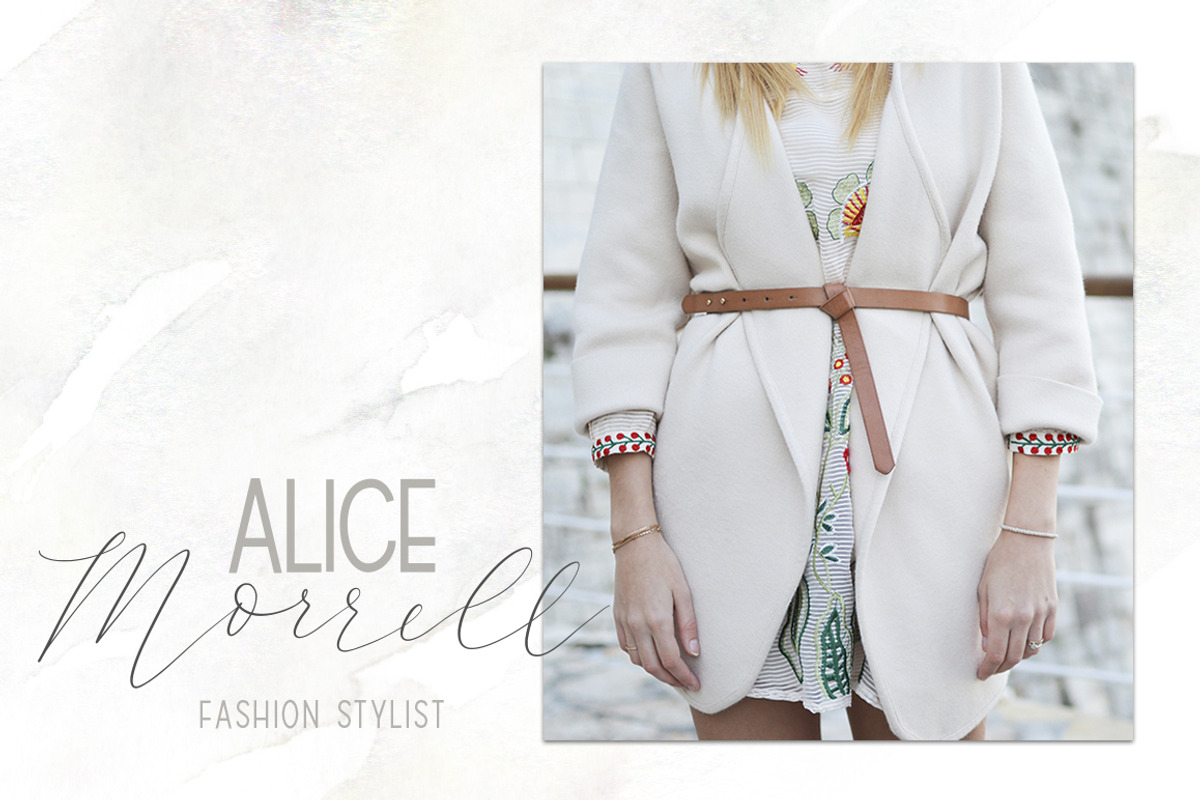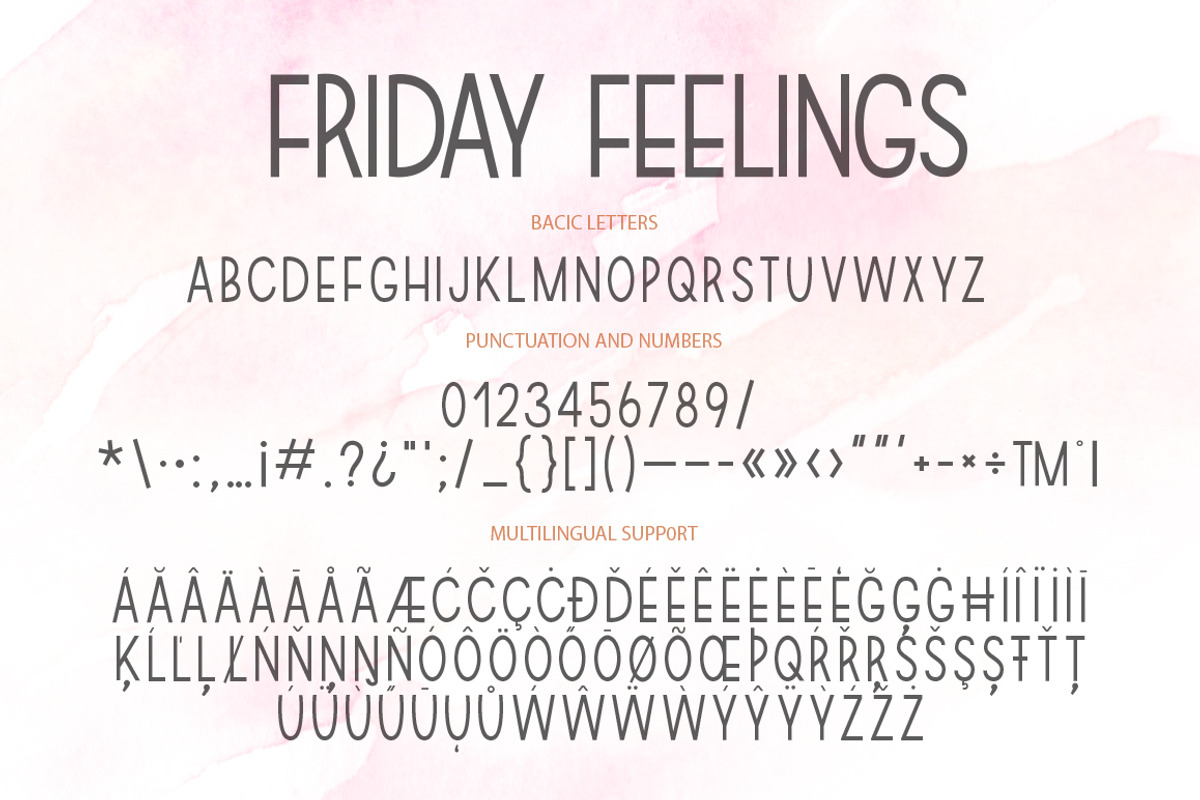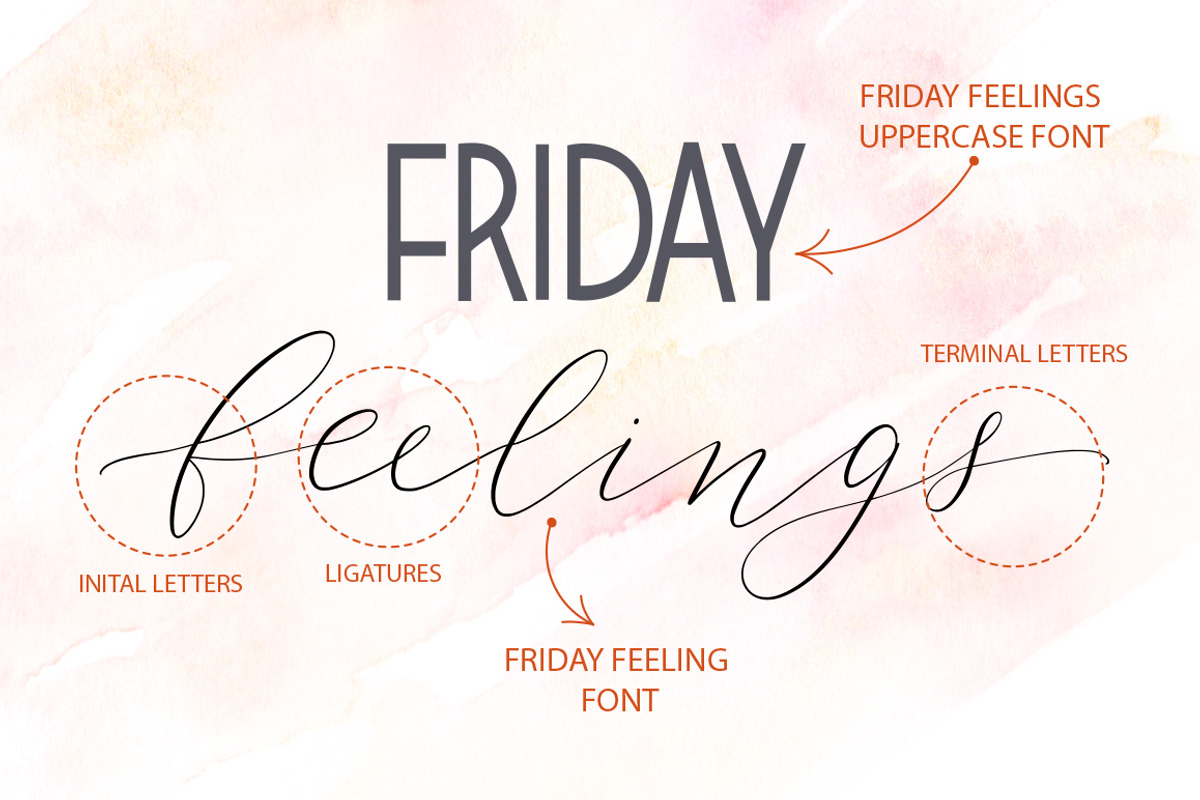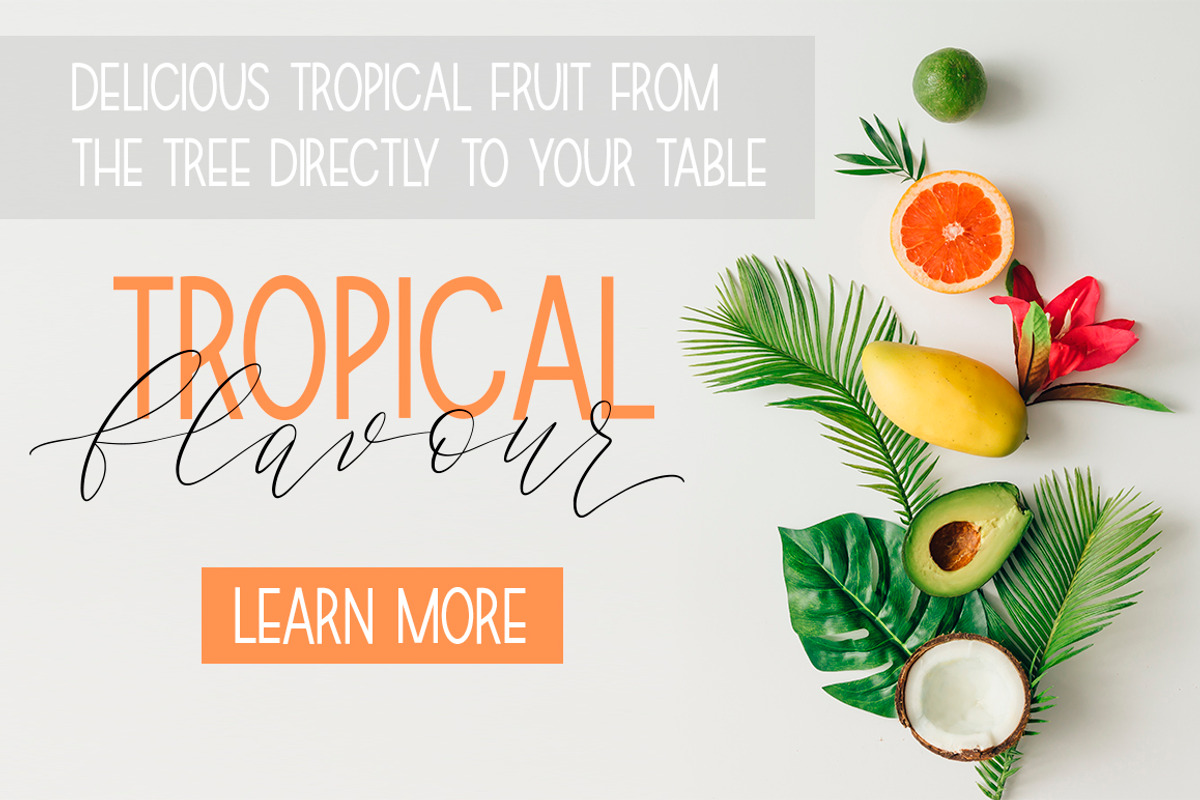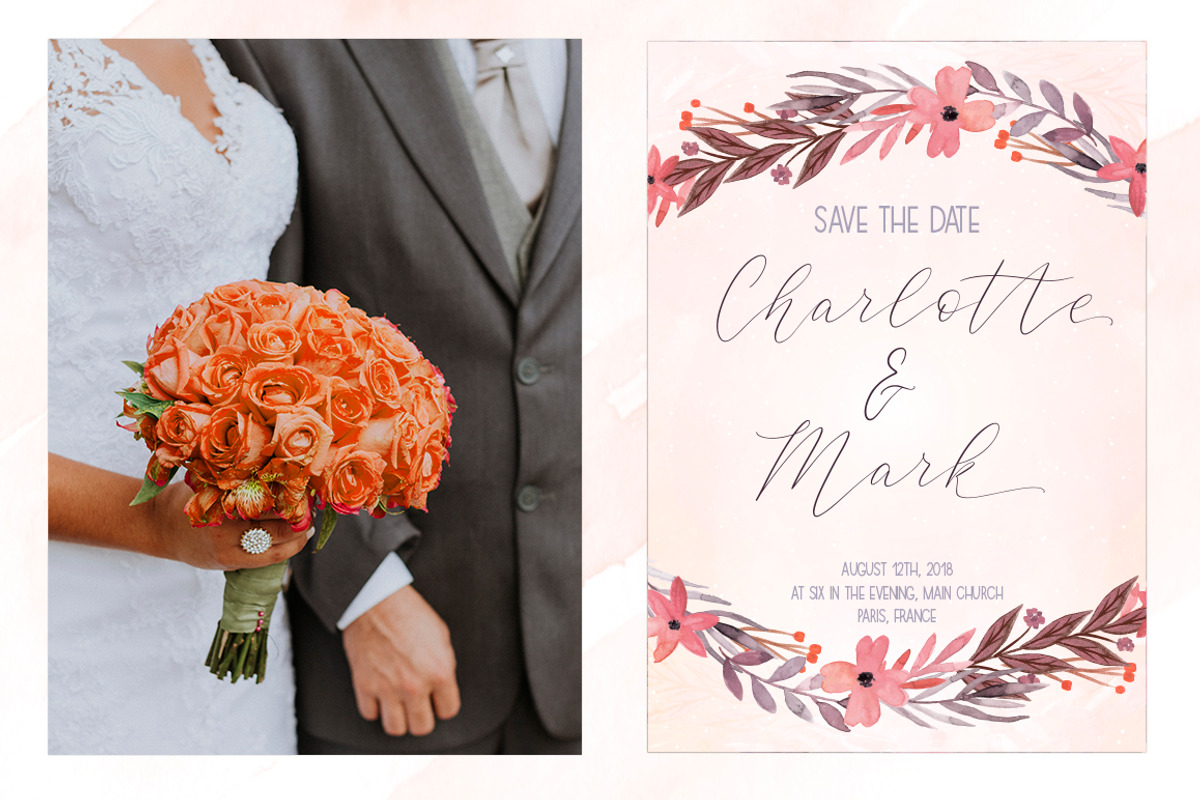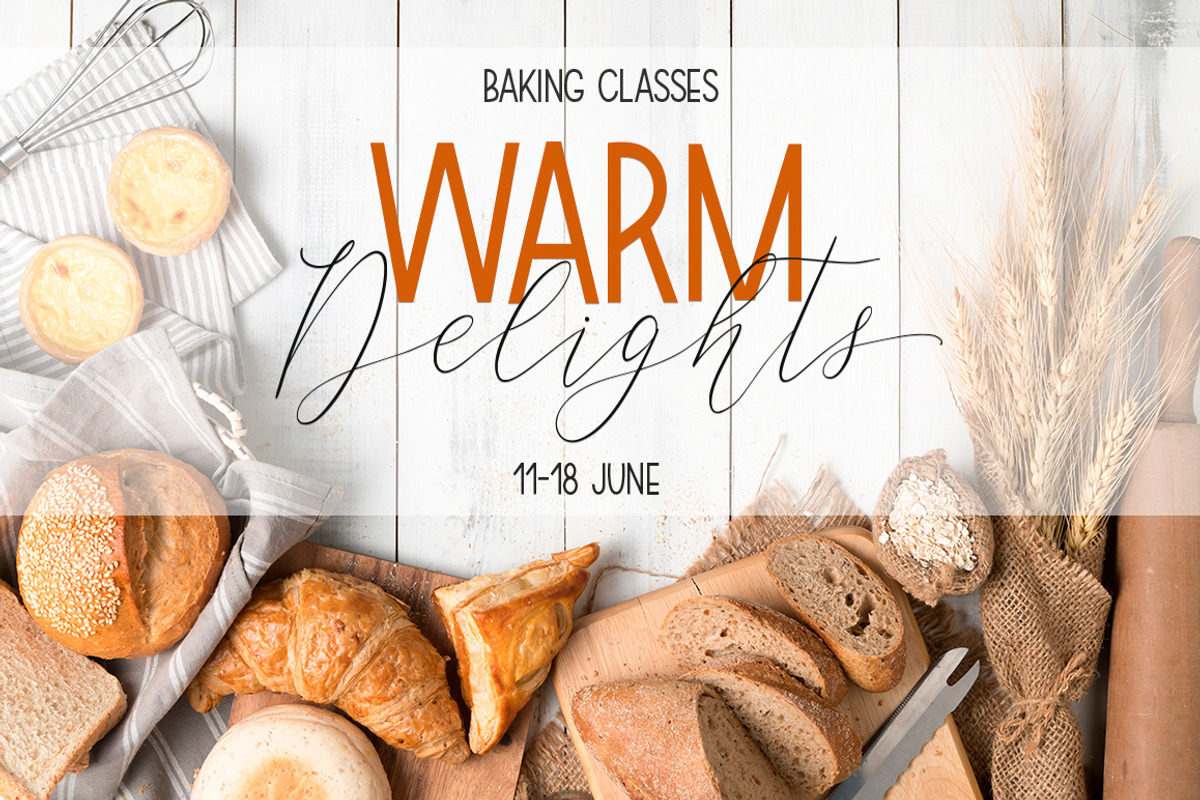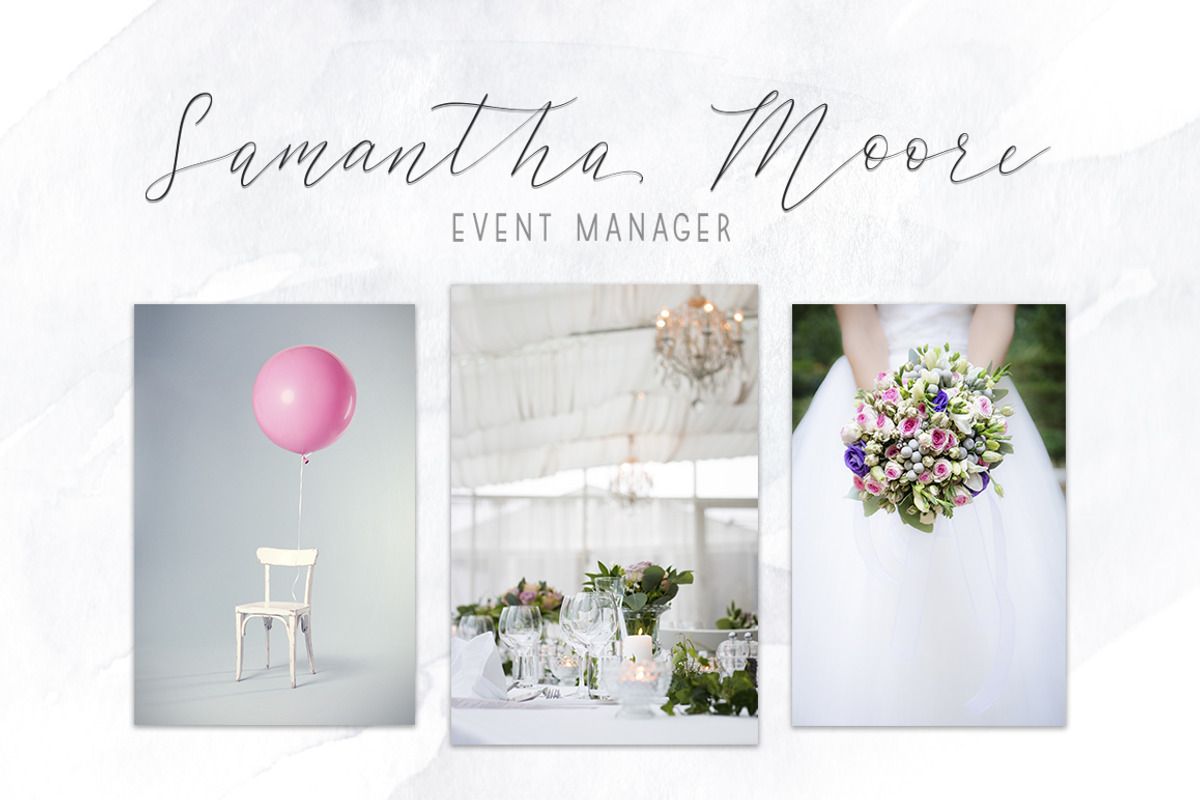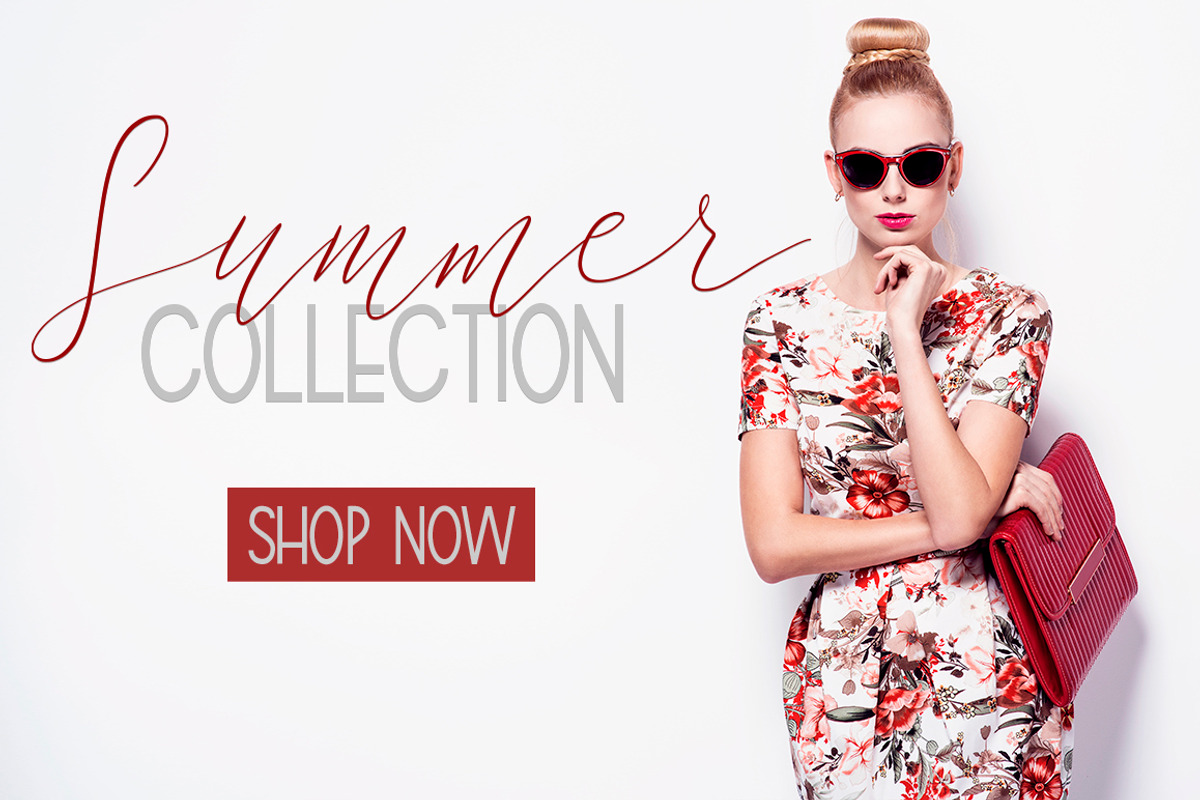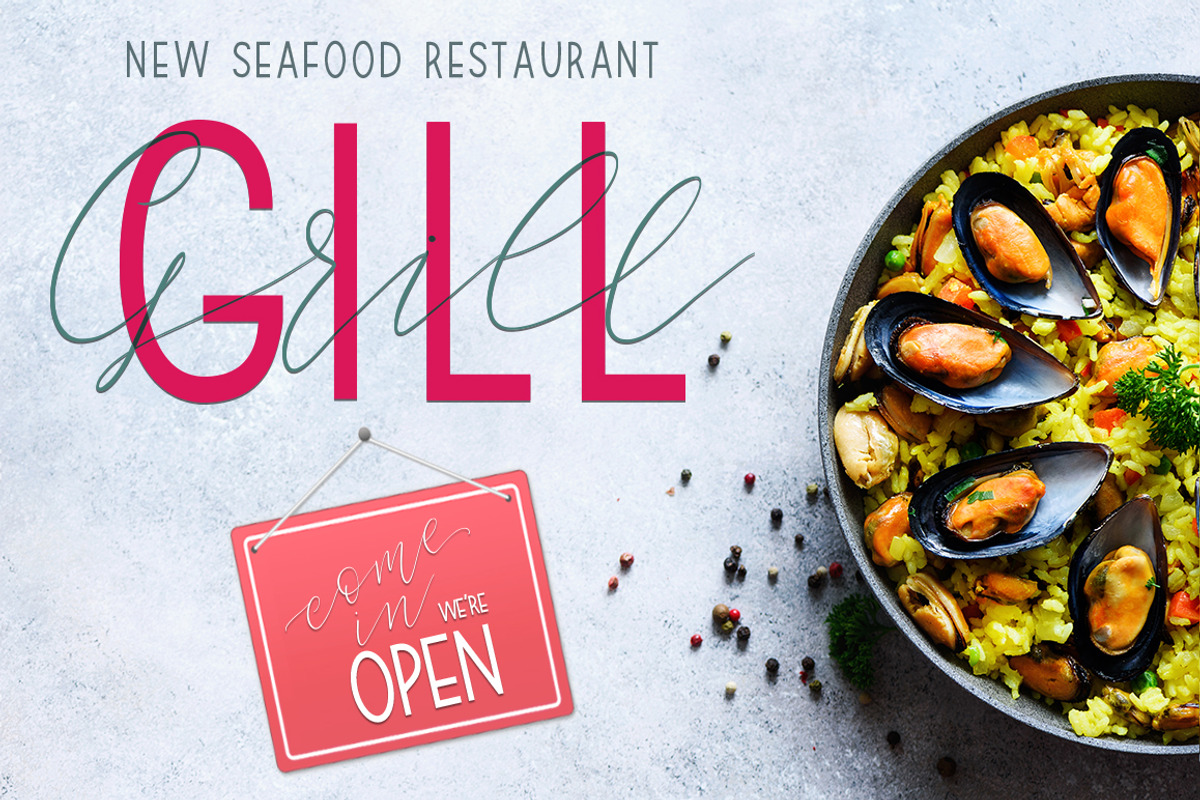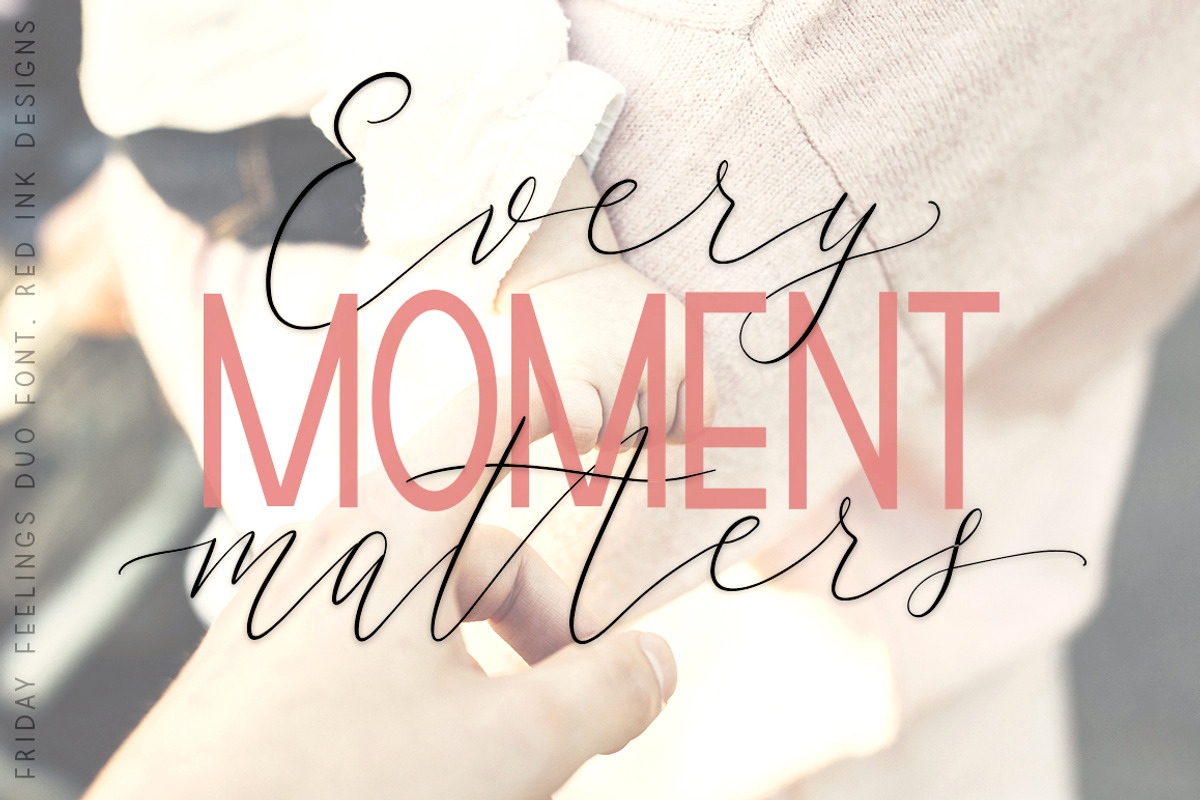
Friday feelings. Font Duo.
Friday Feelings is a beautiful gentle pair of script and sans serif fonts. Modern, expressive; perfectly combined typographic harmony is perfect for posters, greeting cards, t-shits, branding materials, quotes and any other amazing projects you are working on. Each font can be used separately. In conjunction they give a sense of lightness and delicacy – real “friday feeling”)))
Friday feeling script font have many Open type features include ligatures and initial and final letters for all lowercase glyphs. It was created in order to repeat the peculiarities of hand-writing, where each letter is special where combinations of letters are unique and the work of a human feels.
All fonts include multilingual support: Western European, Central European and South Eastern European languages. Please type characters in text box below to check any characters you need.